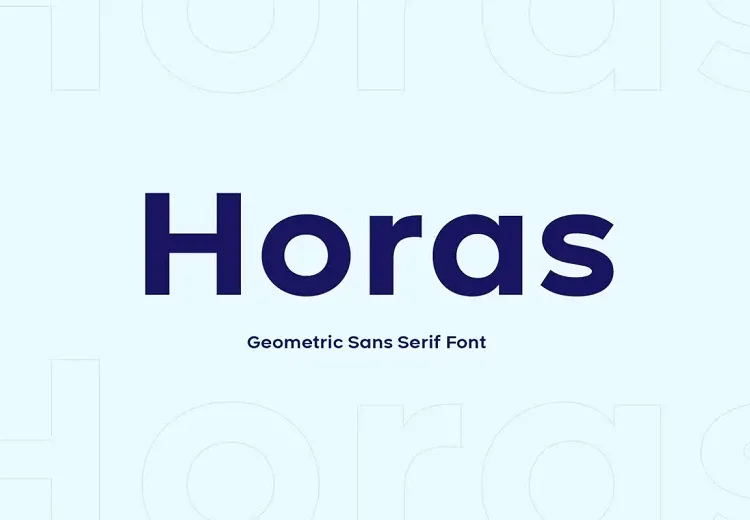
Horas Font Family
Horas is a geometric sans serif font family designed with minimalism and geometric precision in mind. It seamlessly blends the clean lines of sans-serif typography with the sharp edges of geometric shapes, offering a visually engaging option for modern design projects.
Horas excels in both print and digital mediums. In print, it delivers a neat and professional appearance, while on screens, it maintains sharpness and legibility, ensuring clarity across various devices.